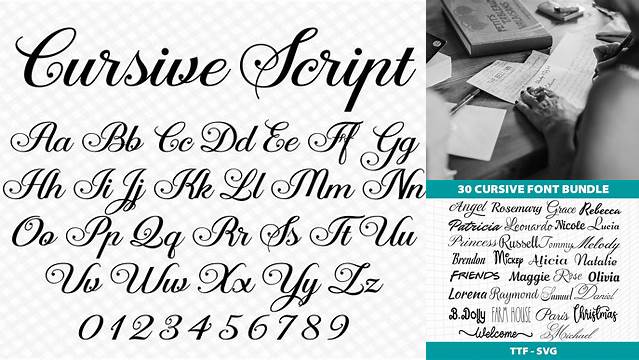
Best Cursive Fonts: Elevate Your Lettering Today
Are you on the hunt for the best cursive fonts for letters? Well, you've landed in the right spot! Whether you're crafting wedding invitations, designing logos, or just adding a touch of elegance to your personal correspondence, the right cursive font can make all the difference. In this comprehensive guide, we'll explore a variety of beautiful and legible cursive fonts that will help your words flow with style and grace. We'll dive into the nuances of different cursive styles, discuss what makes a font suitable for various applications, and give you some killer tips on choosing the perfect font for your next project. So, buckle up and let’s get started on this cursive journey, guys!
What Makes a Great Cursive Font?
Before we jump into the font showcase, let's chat about what qualities make a cursive font truly exceptional. It's not just about looking pretty, although that's definitely a factor! A great cursive font needs to strike a balance between aesthetics and functionality. It needs to be legible, versatile, and reflect the right tone for your message. When selecting best cursive fonts for letters, legibility is key. After all, what's the point of a beautiful font if no one can read it? Look for fonts with clear letterforms and sufficient spacing between characters. Avoid fonts with overly elaborate flourishes or extremely thin strokes, as these can become difficult to decipher, especially in smaller sizes or when used for large blocks of text. A good cursive font should be versatile enough to work in a variety of contexts. Think about where you plan to use the font. Will it be for print or digital applications? Will it be used for headlines, body text, or both? Some cursive fonts are better suited for display purposes, while others are more legible for longer passages. Consider the overall tone and mood you want to convey. Cursive fonts can range from formal and elegant to playful and whimsical. A formal script might be perfect for wedding invitations, while a more relaxed cursive might be ideal for a personal blog or greeting cards. The best cursive fonts often come in a variety of weights and styles, giving you more flexibility in your design. Different weights can be used to create visual hierarchy and emphasis, while alternative styles (such as italic or bold variations) can add even more personality to your text. So, when you’re sifting through your options, keep these elements in mind to ensure you find a font that truly shines and perfectly complements your project.
Top Cursive Fonts for Elegant Invitations
When it comes to elegant invitations, the best cursive fonts for letters can truly set the tone for the entire event. Think flowing lines, graceful curves, and a touch of sophistication. These fonts are perfect for weddings, galas, and any occasion where you want to exude class and style. Let's dive into some top contenders that will make your invitations stand out. One standout choice is "Beloved Script." This font is the epitome of elegance, with its delicate strokes and refined letterforms. It's ideal for wedding invitations, thank-you cards, and anything that needs a touch of romance. The ligatures (those lovely connections between letters) are beautifully crafted, giving your text a seamless and polished look. Another fantastic option is "Adorn Script." This font family offers a range of styles, from a formal script to a more casual handwritten style, making it incredibly versatile. The swashes and flourishes are subtle yet impactful, adding a touch of drama without overwhelming the text. It’s perfect for creating a luxurious and inviting feel. "Aphrodite Pro" is another gem in the world of elegant cursive fonts. It boasts a classic and timeless appeal, with beautifully balanced letterforms and a generous x-height (the height of the lowercase letters). This makes it highly legible even in smaller sizes, which is a huge plus for invitations. The varying stroke widths add a touch of dynamism, making your text look like it was hand-lettered. Don't overlook "Mrs. Eaves Script." This font is a modern take on classic calligraphy, with its clean lines and sophisticated curves. It's a great choice for couples who want a contemporary yet elegant feel for their wedding stationery. The understated elegance of Mrs. Eaves Script makes it incredibly versatile, working well with both traditional and modern design elements. Last but not least, we have "Great Vibes." This font lives up to its name with its lively and cheerful vibe. It's a bit more playful than some of the other options, but it still maintains a sense of elegance. Great Vibes is perfect for invitations that need a touch of personality and warmth. So, if you’re aiming for elegance, these fonts are your go-to choices. Each one brings its unique charm, ensuring your invitations are as memorable as the event itself.
Best Cursive Fonts for Branding and Logos
Branding and logos demand fonts that are not only visually appealing but also memorable and representative of the brand's identity. The best cursive fonts for letters in this context need to strike a delicate balance between style and readability. A cursive font used in a logo becomes a visual signature, so it's crucial to choose wisely. Let’s explore some stellar options for branding and logos that can help your brand make a lasting impression. "Brush Script MT" is a classic choice that has stood the test of time. Its energetic and dynamic strokes make it a great option for brands that want to convey a sense of creativity and spontaneity. It’s particularly well-suited for businesses in the arts, fashion, or food industries. The flowing script adds a personal touch, making the brand feel more approachable and human. Another fantastic option is " Snell Roundhand." This elegant script font exudes sophistication and class. Its refined letterforms and graceful curves make it perfect for high-end brands, such as luxury boutiques, beauty salons, or upscale restaurants. Snell Roundhand conveys a sense of tradition and quality, making it an excellent choice for brands with a heritage story to tell. If you're looking for something a bit more modern and whimsical, " Pacifico" is a great choice. This casual script font has a friendly and approachable vibe, making it ideal for brands that cater to a younger audience or want to project a relaxed and informal image. Pacifico’s flowing lines and rounded letterforms give it a cheerful and welcoming feel. For a touch of vintage charm, consider "Lobster." This bold script font has a retro feel that can add character and personality to your branding. Lobster is particularly well-suited for businesses that want to evoke a sense of nostalgia or authenticity, such as coffee shops, barbershops, or vintage clothing stores. The strong letterforms make it highly visible, even in smaller sizes. Finally, "Playlist Script" offers a modern and versatile option. This handwritten-style font has a natural and authentic feel, making it perfect for brands that want to convey a sense of personality and craftsmanship. Playlist Script is ideal for businesses in the creative industries, such as design studios, photography studios, or handmade goods shops. The imperfect lines and varying stroke widths give it a unique and memorable look. In conclusion, selecting the best cursive fonts for letters for your branding and logos is a crucial step in creating a strong and recognizable brand identity. Consider the personality you want to convey and choose a font that aligns with your brand’s values and target audience.
Casual and Playful Cursive Fonts for Fun Projects
Not every project calls for formal elegance; sometimes, you need a font that’s casual, playful, and full of personality. For those fun and lighthearted designs, the best cursive fonts for letters are those that inject a sense of joy and whimsy. Think greeting cards, children’s books, informal invitations, and social media graphics. These fonts often have a more relaxed, handwritten feel, making them perfect for projects that need a touch of warmth and approachability. Let's explore some top contenders that will add a dash of fun to your creations. "Cookie" is a delightful script font that exudes sweetness and charm. Its rounded letterforms and bouncy baseline give it a playful and inviting feel. Cookie is perfect for projects related to baking, parties, or anything that needs a touch of cuteness. The friendly vibe of this font makes it a great choice for children’s designs and informal invitations. If you're looking for a font with a more handwritten feel, "Amatic SC" is an excellent option. While technically a sans-serif font, its handwritten style gives it a casual and approachable look. Amatic SC is perfect for headlines, posters, and other display purposes where you want to add a personal touch. Its tall, narrow letterforms make it highly readable, even in larger sizes. Another playful choice is "Permanent Marker." This font mimics the look of a marker pen, giving it a fun and informal vibe. Permanent Marker is ideal for projects that need a touch of spontaneity and creativity, such as posters, flyers, and social media graphics. Its bold strokes and slightly irregular letterforms make it stand out. For a more whimsical and quirky look, consider "Coming Soon." This font has a unique, hand-drawn feel with slightly uneven lines and playful curves. Coming Soon is perfect for projects that need a touch of personality and charm, such as children’s books, greeting cards, or blog headers. Its distinctive style makes it instantly memorable. " Indie Flower" is another fantastic option for casual projects. This font has a relaxed and friendly vibe, with rounded letterforms and a slightly slanted posture. Indie Flower is perfect for projects that need a touch of warmth and approachability, such as personal blogs, handmade goods websites, or informal invitations. The natural feel of this font makes it a great choice for adding a personal touch to your designs. So, when you’re aiming for a casual and playful vibe, these fonts are your go-to choices. Each one brings its unique charm, ensuring your designs are as fun and engaging as the message you want to convey. These best cursive fonts for letters will surely brighten up any project with their delightful personalities.
Tips for Choosing the Perfect Cursive Font
Choosing the best cursive fonts for letters can feel like a daunting task, especially with so many beautiful options available. But fear not, guys! With a few key considerations in mind, you can narrow down your choices and select the perfect font for your project. Here are some helpful tips to guide you through the process. First off, consider the project's purpose. What are you using the font for? Is it for a formal invitation, a logo, a casual greeting card, or something else entirely? The purpose of your project will heavily influence the type of cursive font that will be most appropriate. A formal event calls for an elegant and refined script, while a fun project might benefit from a playful and whimsical font. Think about the tone and mood you want to convey. Cursive fonts can evoke a wide range of emotions, from sophistication and romance to playfulness and warmth. Make sure the font you choose aligns with the overall tone and message of your project. If you're creating a logo for a luxury brand, you'll want a font that exudes elegance and exclusivity. If you're designing a birthday card for a child, a more playful and friendly font will be a better fit. Legibility is crucial, guys. A beautiful font is useless if it's difficult to read. Pay attention to the letterforms, spacing, and overall clarity of the font. Avoid fonts with overly elaborate flourishes or extremely thin strokes, as these can become illegible, especially in smaller sizes or when used for large blocks of text. Test the font in different sizes and contexts to ensure it remains readable. Consider the font's versatility. A versatile font can be used in a variety of applications and will give you more flexibility in your designs. Look for fonts that come in multiple weights and styles, such as bold, italic, and condensed versions. This will allow you to create visual hierarchy and emphasis in your text. Also, consider whether the font works well in both print and digital formats. Pairing fonts can be a tricky but rewarding endeavor. The right font pairing can elevate your design and create a cohesive look. When pairing cursive fonts, it's often best to contrast them with a simpler sans-serif or serif font. This creates a visual balance and ensures that your text remains legible. Experiment with different combinations to find a pairing that works well for your project. Finally, don't be afraid to experiment! Try out different fonts and see what works best for your specific needs. Many font foundries offer trial versions of their fonts, so you can test them out before making a purchase. Play around with different styles and weights, and see how they look in your design. In summary, selecting the best cursive fonts for letters requires careful consideration of your project’s purpose, tone, legibility, versatility, and font pairing. By following these tips, you can confidently choose a font that enhances your design and effectively communicates your message.
In conclusion, the best cursive fonts for letters are essential tools for adding a touch of elegance, personality, and charm to your designs. Whether you're creating wedding invitations, designing logos, or working on fun, casual projects, the right cursive font can make all the difference. We've explored a variety of cursive fonts suitable for different applications, from formal scripts for elegant invitations to playful handwritten styles for fun projects. Remember, when choosing a cursive font, consider the project's purpose, the tone and mood you want to convey, legibility, versatility, and font pairing. Don’t be afraid to experiment and try out different fonts to see what works best for your specific needs. With the wealth of resources available online, finding high-quality cursive fonts is easier than ever. Platforms like MyFonts, Adobe Fonts, FontSpring, Google Fonts, and Creative Market offer a diverse range of options, from premium fonts to free resources. So, go ahead and explore the world of cursive fonts, and let your creativity flow! By carefully selecting and utilizing the best cursive fonts for letters, you can elevate your designs and create visually stunning and impactful messages. Happy designing, guys! We hope this comprehensive guide has given you the knowledge and inspiration to find the perfect cursive font for your next project. Remember, the right font can transform your words into works of art, adding that special touch that makes your designs truly shine.